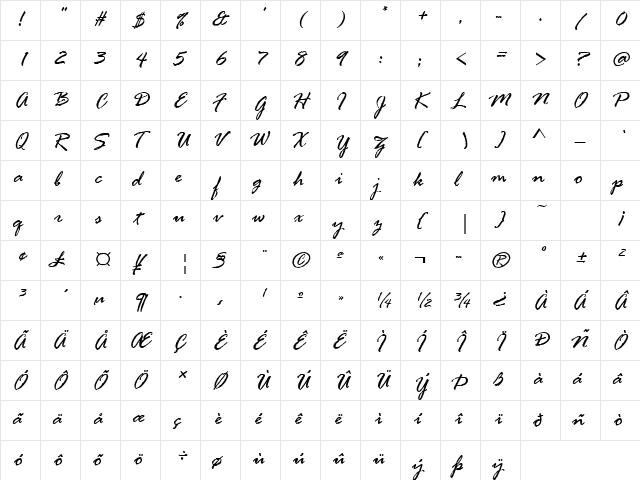
URWRabbiJoiT Regular
Design Context for URWRabbiJoiT Typeface
URWRabbiJoiT is a composed and adaptable typeface that performs quietly and consistently across a wide range of design contexts.